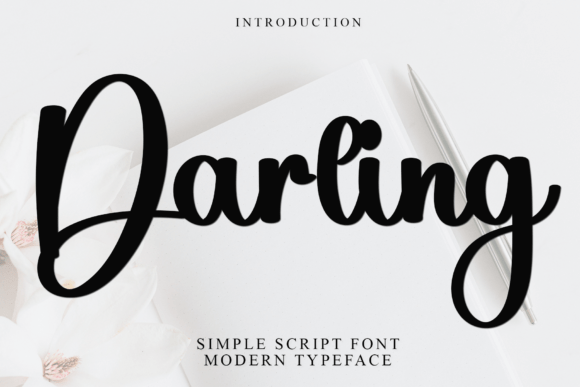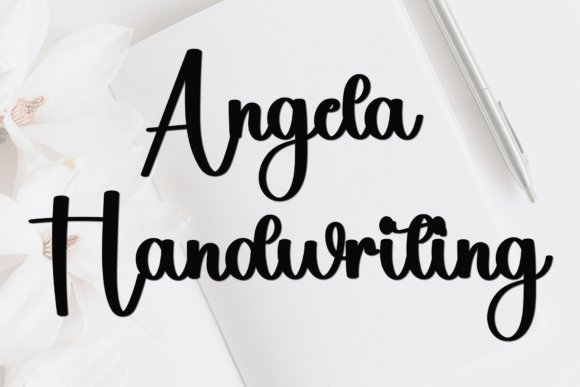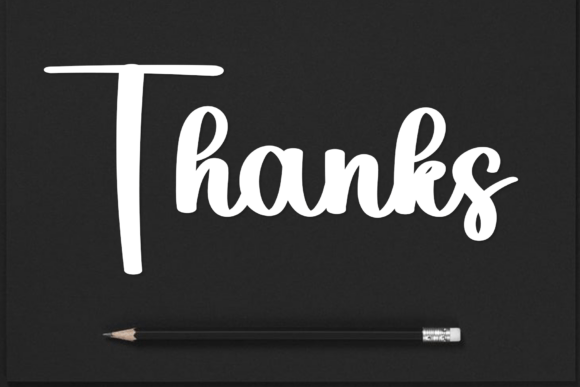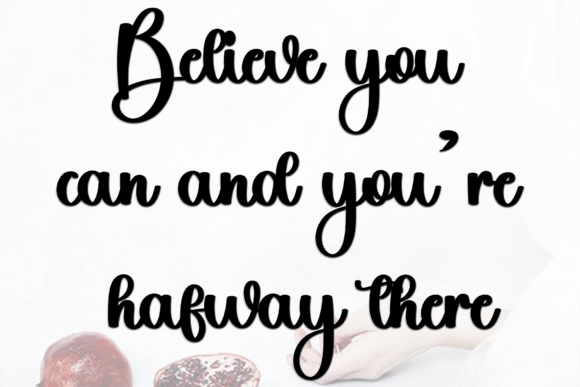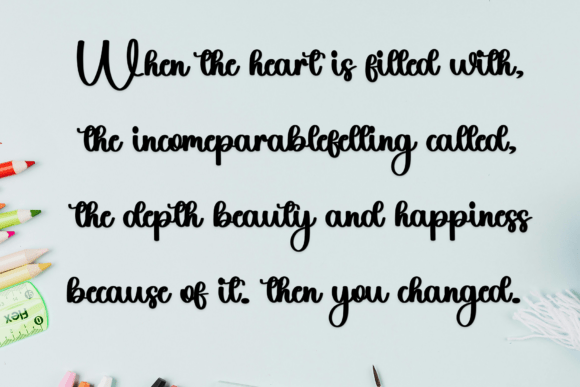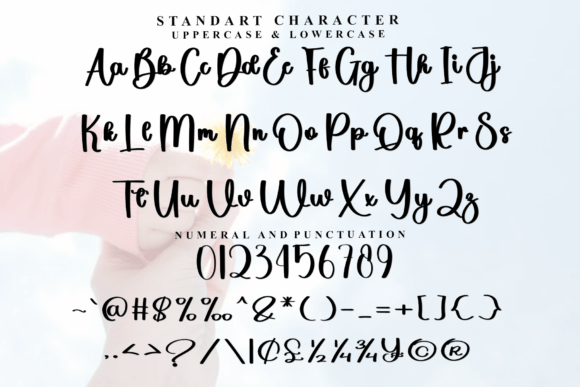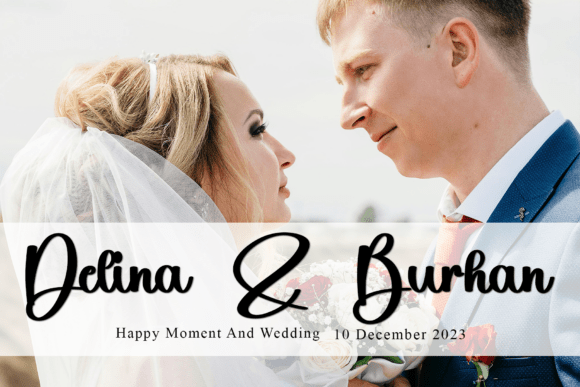
The Perfect Font for Your Masterpiece: Darling Font
Have you ever been stuck on a design project, trying to find the perfect font to bring your vision to life? I know I have. It’s like searching for the missing piece of a puzzle, until suddenly, it clicks. For me, that moment came when I discovered the Darling Font. This beautiful and eye-catching font is designed with a soft, unique touch that gives it a special character.
The Darling Font is a versatile tool for designers, perfect for a wide range of projects, from crafts to digital designs. Its distinctive strokes make it meaningful and memorable, and its compatibility with various applications, including Windows and open-source platforms, makes it a valuable asset for any creative project.
Whether you’re a seasoned designer or just starting out, the Darling Font is an essential addition to your toolkit. Its natural style and unique character will enhance your designs, making them appealing to a wide audience across different artistic and creative fields.
Darling Font Key Features
- Font Family: Darling Font is a beautiful, elegant script font designed to evoke a sense of sophistication and luxury.
- Character Set: The font includes a comprehensive set of characters, including uppercase and lowercase letters, numbers, punctuation marks, and special characters, covering Latin, Greek, and Cyrillic scripts.
- Unique Characteristics: The font features a unique, hand-drawn design with subtle flair and personality, making it perfect for adding a touch of elegance to any project.
Darling Font Review
Overall, I have mixed feelings about the Darling Font. It’s a beautiful script font that can add a touch of elegance to your designs. ✨ Here are some things that I think work well:
- Delicate, cursive feel that’s perfect for invitations, quotes, and other romantic projects
- Good legibility, even at smaller font sizes
- Works well with both digital and printed materials
However, I do have some reservations about the Darling Font. ⚠️ Here are some limitations:
- Not suitable for bold or formal text, as it can come across as too whimsical or playful
- May not be the best choice for large blocks of text, as it can be difficult to read
Overall, I think the Darling Font is a lovely addition to any font collection, but it’s not a one-size-fits-all solution. It’s best used sparingly to add a touch of personality to your designs. With a little creativity and restraint, you can achieve some truly beautiful results with this font.
Tips for Getting the Most Out of the Darling Font
The Darling Font is ideal for creating elegant and sophisticated designs. To get the most out of it, use it for:
- Branding and logos.
- Magazine and newspaper articles.
The Darling Font is perfect for any design that requires a touch of elegance and sophistication. Some common use cases include:
- Formal events and weddings.
- High-end branding and marketing materials.
- Magazine and newspaper articles that require a sophisticated tone.
Alternatives to Darling Font
The Darling Font is a beautiful, elegant script font. However, it may not be suitable for every design project. Here are some alternatives to consider:
Playfair Display is a high-end script font that exudes luxury and sophistication. It’s perfect for use in high-end branding, luxury goods, and fine art projects. It has a more classical and elegant feel compared to Darling Font, which has a more modern and whimsical touch. Use Playfair Display when you want to convey a sense of refinement and opulence.